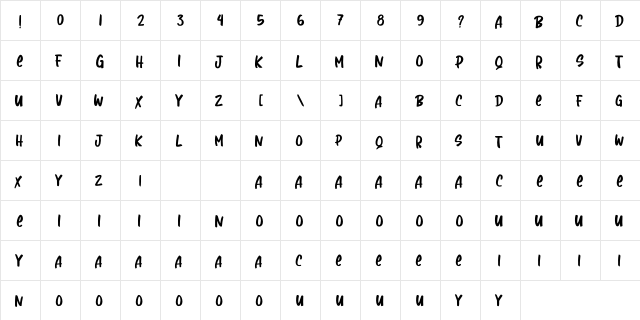
Basketball Regular
| Foundry | Markonah Creative |
| Designer | Herman |
Design Context for Basketball Typeface
Basketball is a composed and adaptable typeface that performs quietly and consistently across a wide range of design contexts.